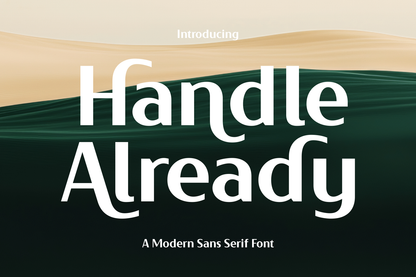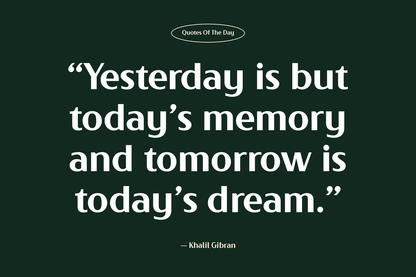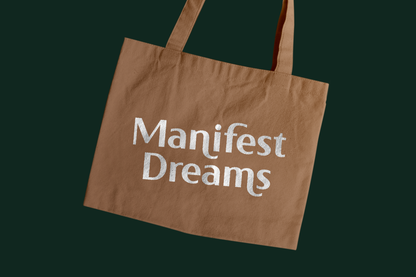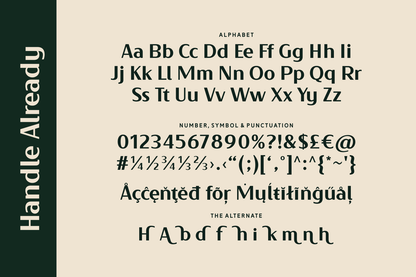
Handle Already is a modern sans serif font that combines crisp geometric lines with playful curves. It adds a touch of personality to clean layouts, making it perfect for editorial spreads, creative branding, or lifestyle blogs. The font’s refined yet quirky style creates visual interest in both web and print settings, giving any design a memorable edge.